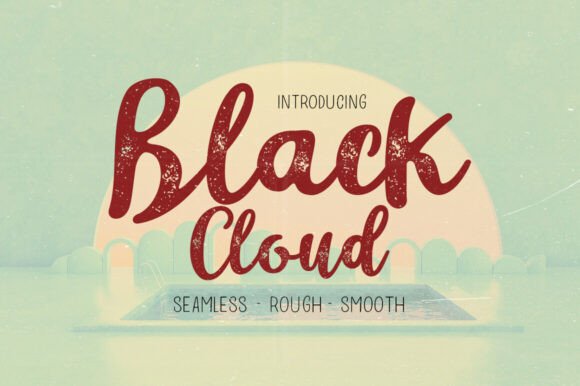
The Ultimate Guide to Black Cloud Font: A Designer’s Dream
Have you ever been in the middle of a design project, and suddenly, you’re stuck on finding the perfect font? I recall a recent experience where I was working on a branding project for a trendy coffee shop, and I just couldn’t find a font that captured the right vibe. That’s when I stumbled upon the Black Cloud font, a unique combination of comic bold script and handwriting styles. In this article, we’ll dive into the world of Black Cloud font, exploring its features, uses, and some valuable tips for incorporating it into your designs.
A Personal Review: What I Love and What I Don’t
• ✅ Unique and eye-catching design that combines comic bold script and handwriting styles
• ✅ Highly versatile and suitable for various design projects, from logos to social media posts
• ✅ Easy to read and understand, even at smaller font sizes
• ✅ Great for creating a friendly and approachable brand identity
• ⚠️ Limited use of uppercase letters, which might be a drawback for some designs
• ⚠️ Some users might find the font a bit too playful or informal for certain projects
One of the exciting features of Black Cloud font is its support for OpenType features, glyphs, and stylistic alternates. These features allow you to add more variety and creativity to your designs. Here are a few examples:
• Stylistic alternates: Switch between different font styles, such as bold, italic, or script
• Glyphs: Access additional characters, such as ligatures, swashes, or ornaments
• Ligatures: Combine multiple characters into a single glyph, creating a more fluid and natural look
The Designer Inspiration Behind Black Cloud Font
Black Cloud font was inspired by the creative and artistic community of designers who love to experiment with new and unique typography. The font’s designer aimed to create a font that would be both fun and versatile, suitable for a wide range of design projects. Whether you’re a professional designer or a creative hobbyist, Black Cloud font is sure to inspire your next project.
Is Black Cloud font suitable for body text? While Black Cloud font is primarily designed for display purposes, it can be used for body text in certain contexts, such as in a blog or article.
In conclusion, Black Cloud font is a unique and versatile font that’s perfect for designers, crafters, and creative hobbyists. With its combination of comic bold script and handwriting styles, it’s ideal for creating eye-catching logos, social media posts, and even t-shirt designs. By exploring its OpenType features, glyphs, and stylistic alternates, you can add more creativity and personality to your designs. So go ahead, give Black Cloud font a try, and see what amazing creations you can come up with! 🎨